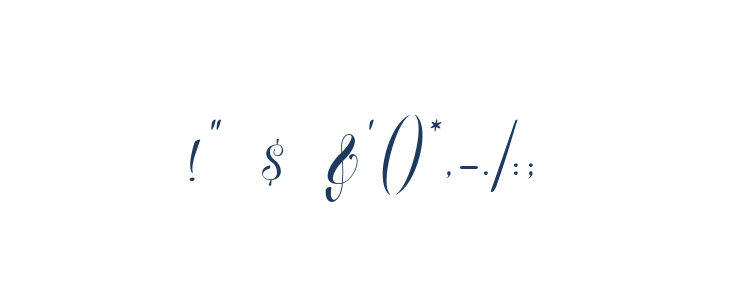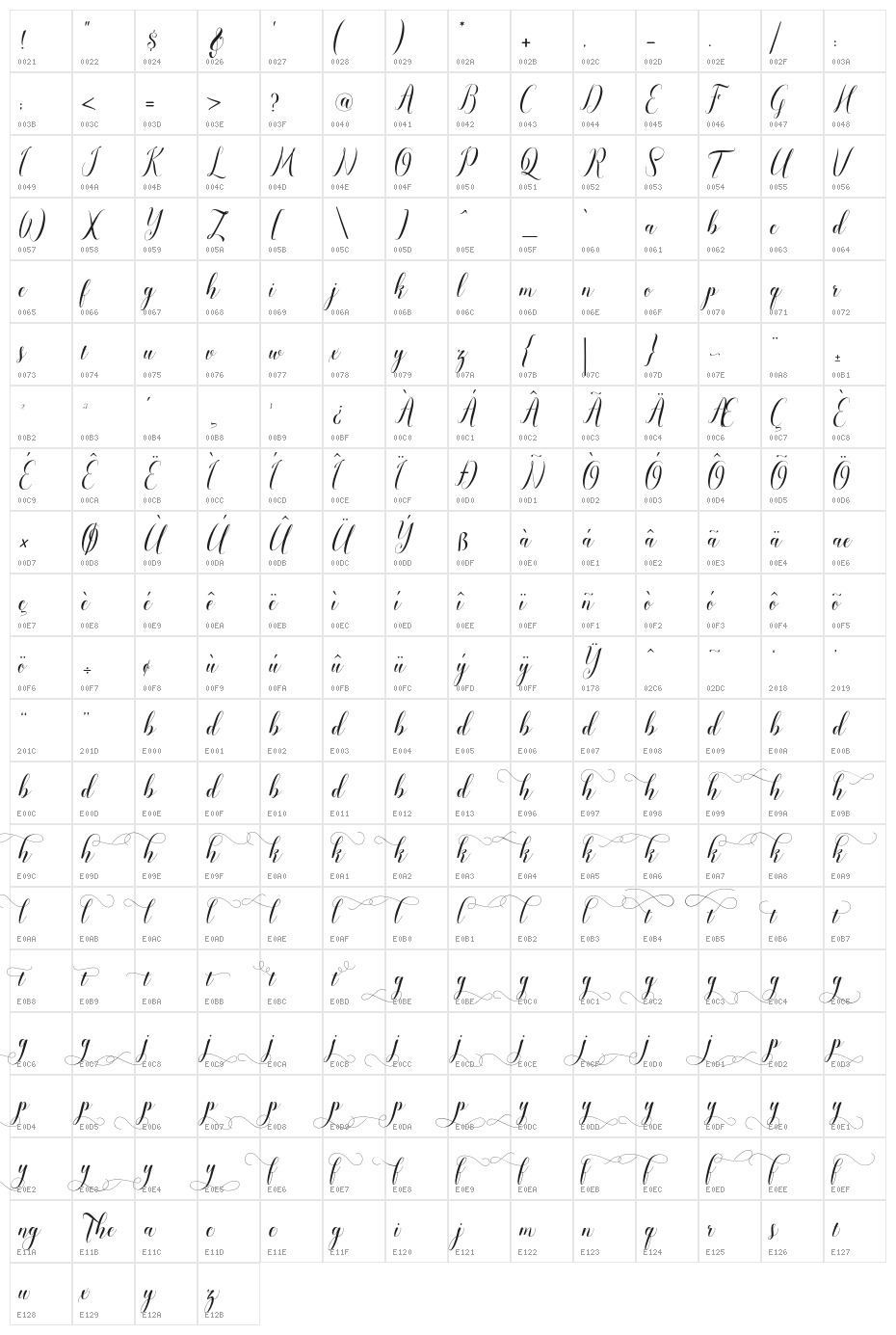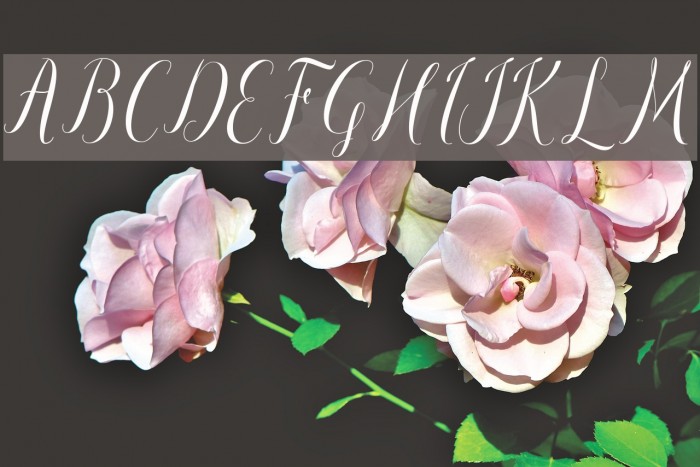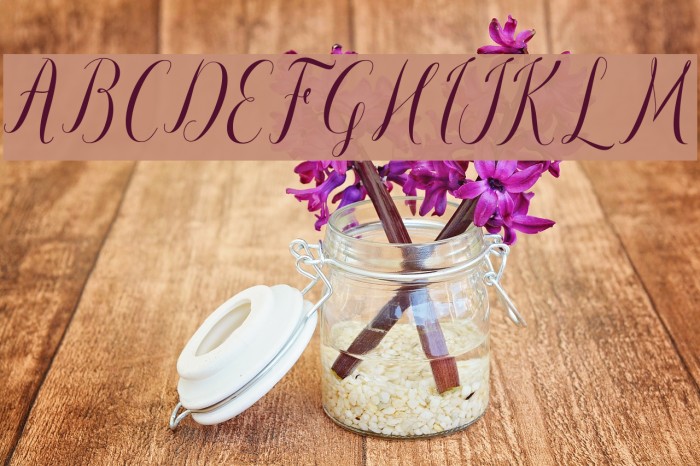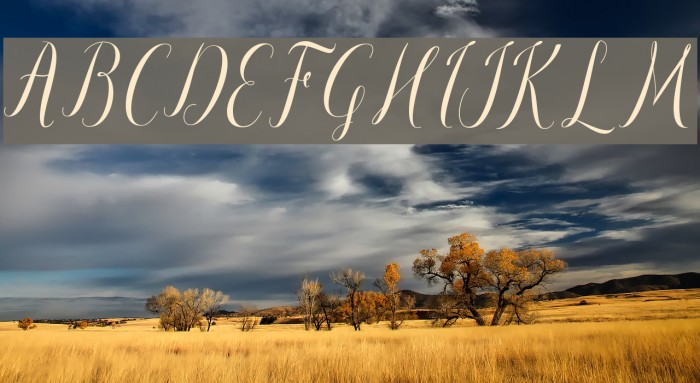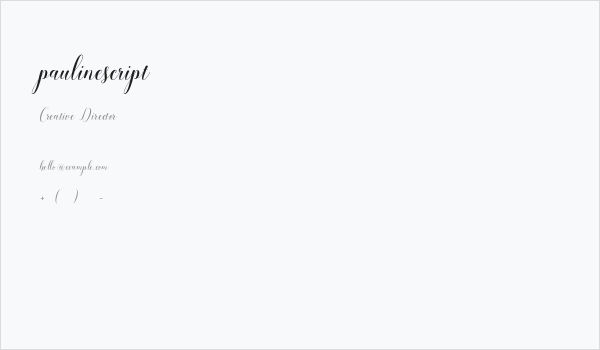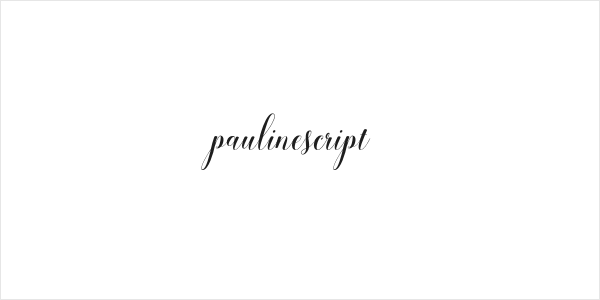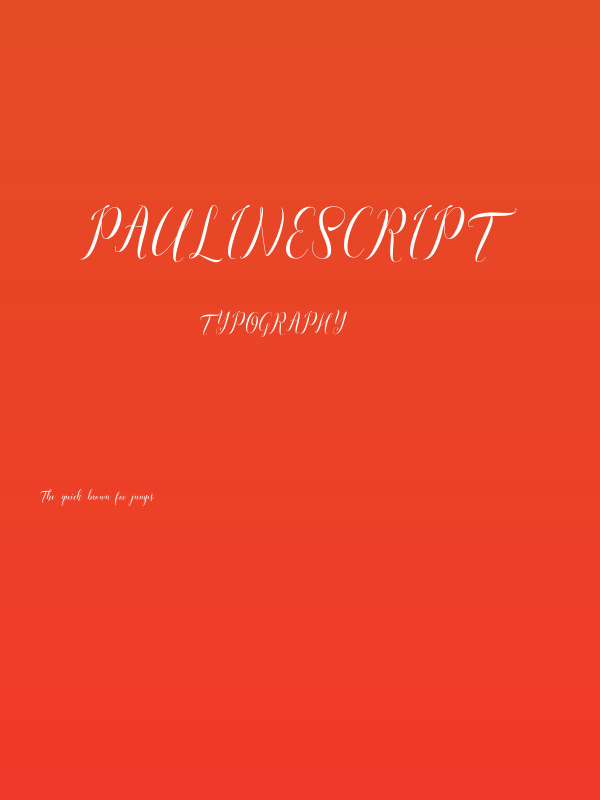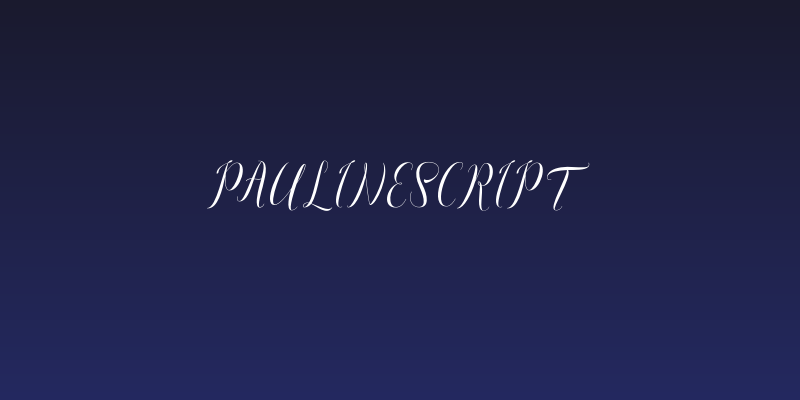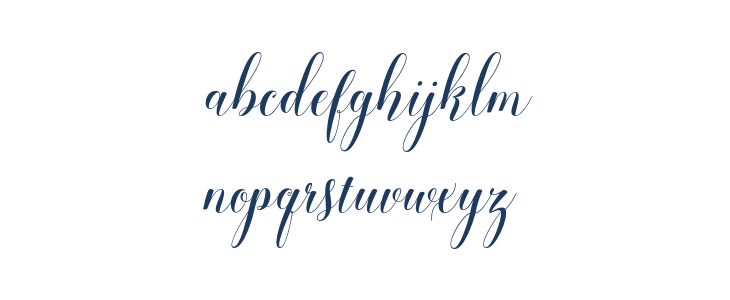
paulinescript Font
paulinescript Description
This elegant script font features flowing, cursive letterforms with high contrast between thick and thin strokes. The uppercase letters are particularly ornate, with sweeping flourishes that add a touch of sophistication and grace. The lowercase letters maintain a consistent style, offering a smooth and connected appearance that enhances readability while preserving the decorative nature of the font. The numerals and special characters are designed to complement the overall aesthetic, ensuring a cohesive look across all text elements. This font is ideal for projects that require a touch of elegance and formality.
| Overall Style | Elegant, Decorative |
| Use Case | Logos, Invitations, Headlines |
| Proposed Projects | Wedding invitations, elegant branding, formal event programs, luxury product packaging. |